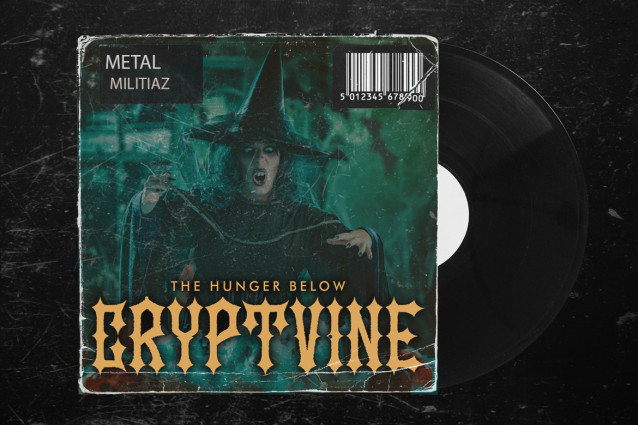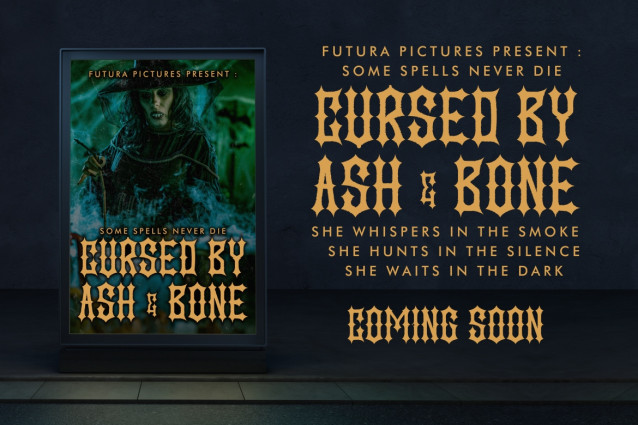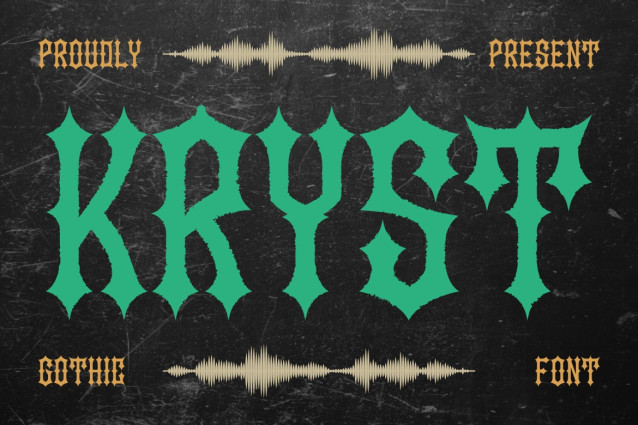
Kryst Gothic Font is shaped with sharp, dramatic letterforms and strong vertical emphasis. The characters appear tall and narrow, creating an aggressive and commanding rhythm. Stroke contrast feels firm, with pointed terminals that enhance tension and impact. Angular cuts define each letter clearly, giving the font a strict and disciplined structure. The overall weight sits between medium and bold, allowing titles to feel heavy without losing legibility. Spacing stays tight, which strengthens intensity in logos and headlines. The form language reflects classic gothic typography with a modern edge.
Kryst Gothic Font delivers a dark visual identity that feels raw and uncompromising. It performs best at display sizes where detail and character matter most. The structure supports powerful wordmarks and short phrases.
The style fits gothic, black metal, and dark music branding with a strong underground atmosphere. This font suits metal bands, music labels, event organizers, recording projects, horror themed media, and dark creative studios. It works well for logos, branding systems, posters, advertisements, album covers, magazine titles, book covers, movie titles, stickers, invitations, and headline typography. The sharp gothic tone helps projects communicate intensity, rebellion, and mysticism. It supports storytelling built around darkness, sound, and emotion.
Multilingual character support allows consistent use across international releases. The font adapts well to both print and digital layouts. Kryst Gothic Font helps brands establish a bold identity rooted in metal culture and gothic expression.